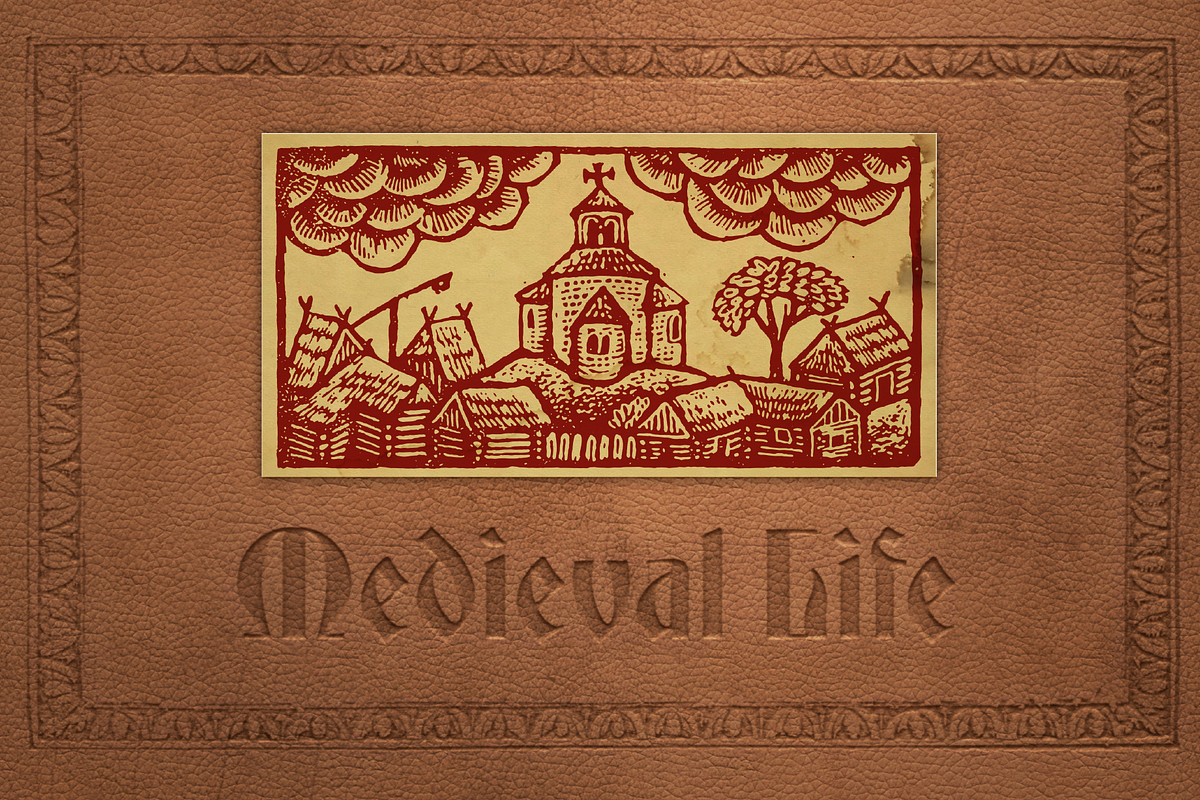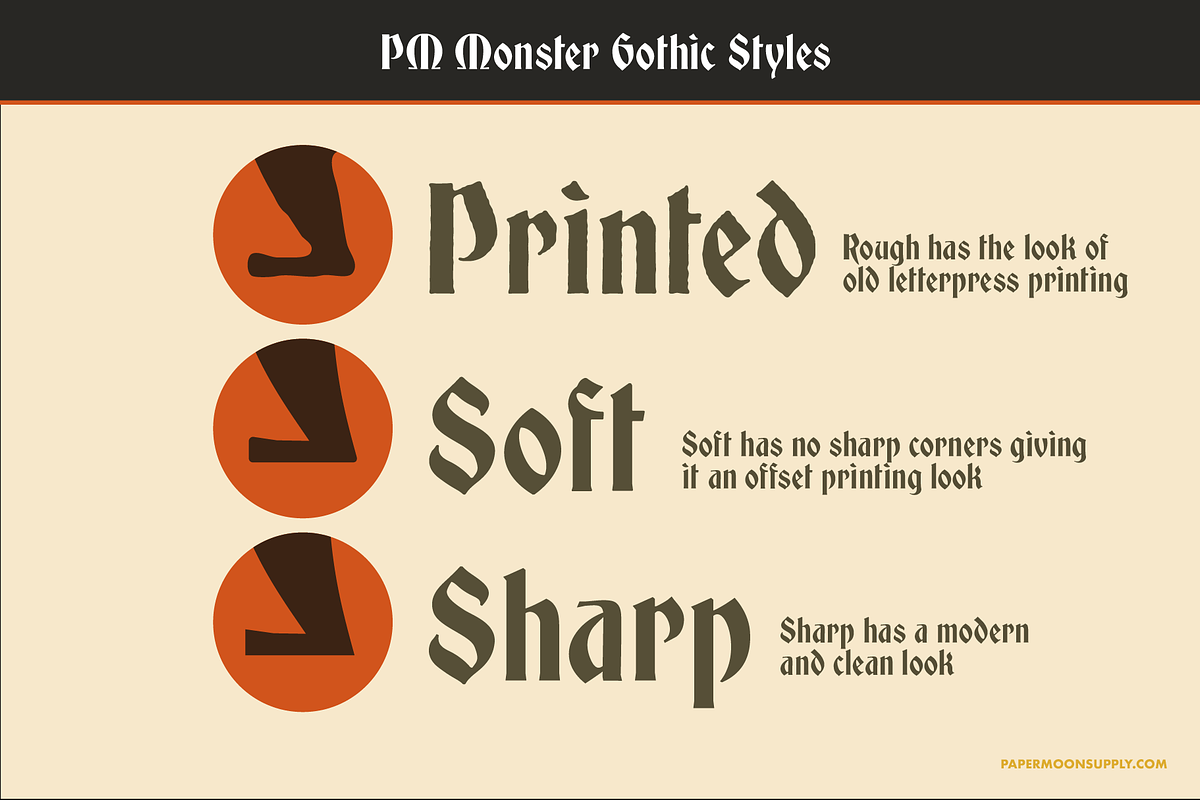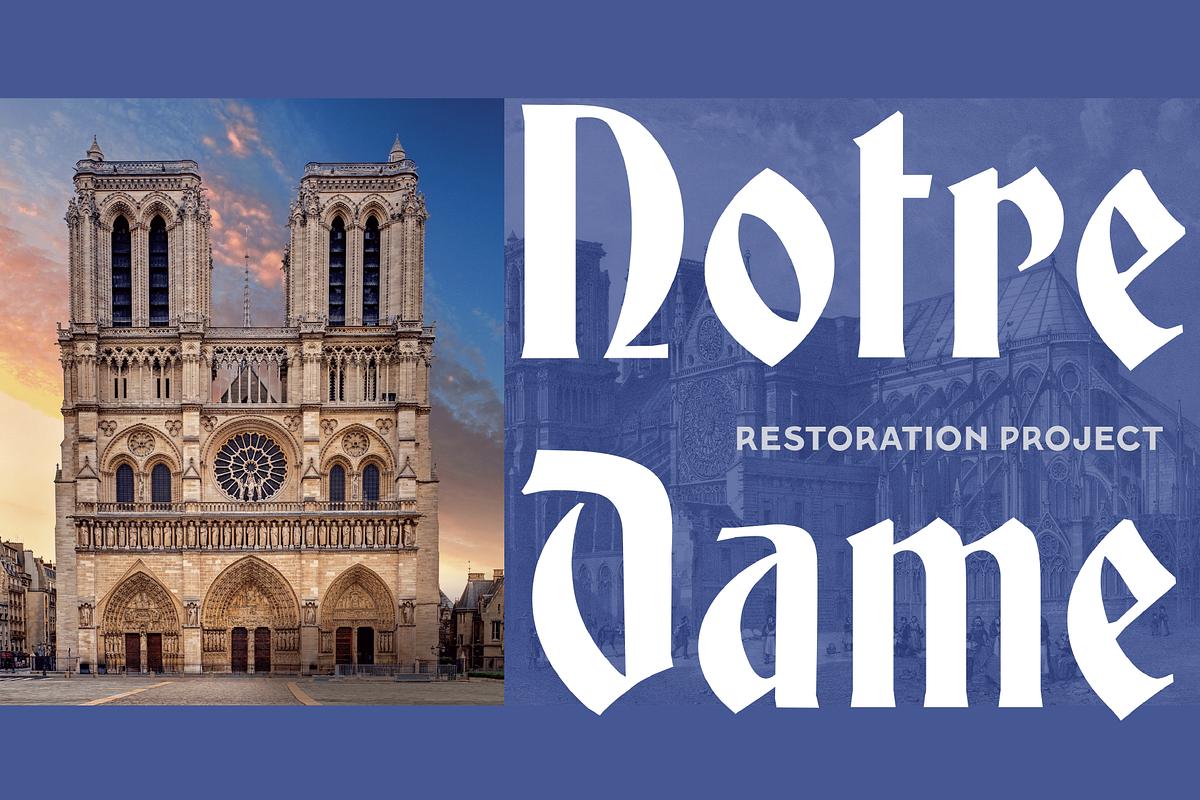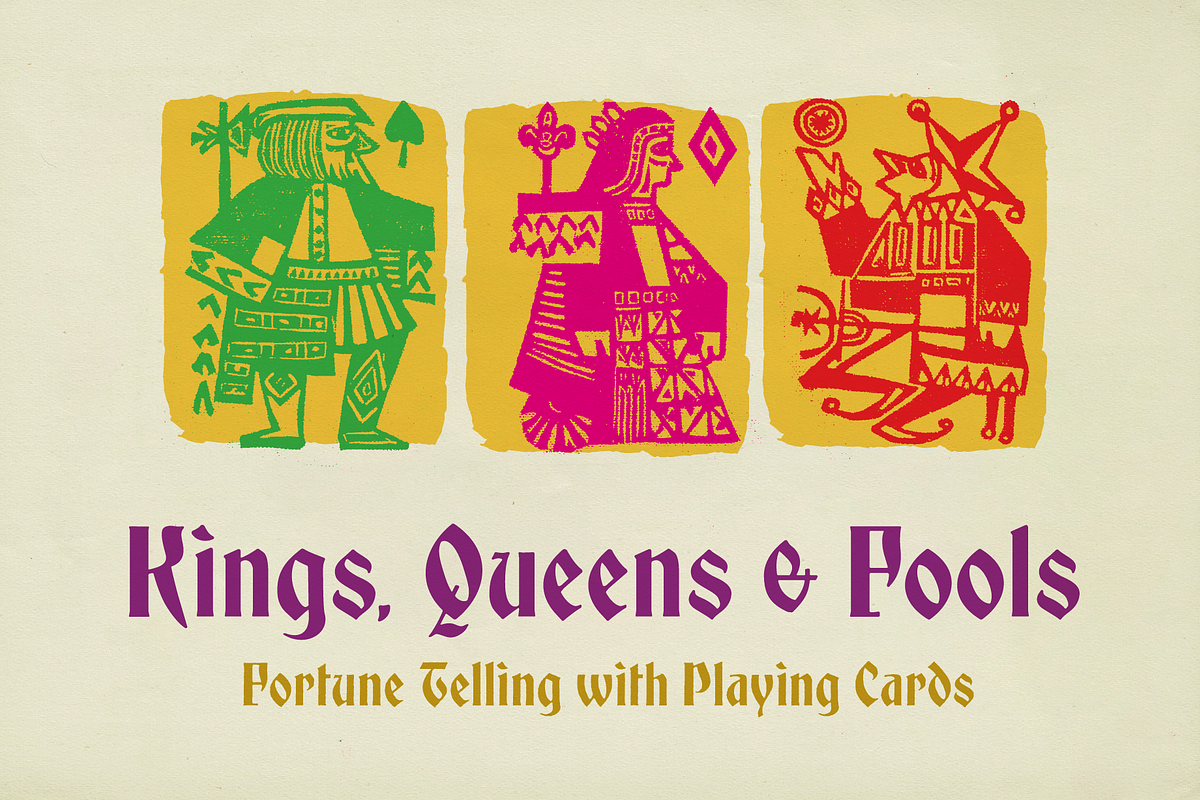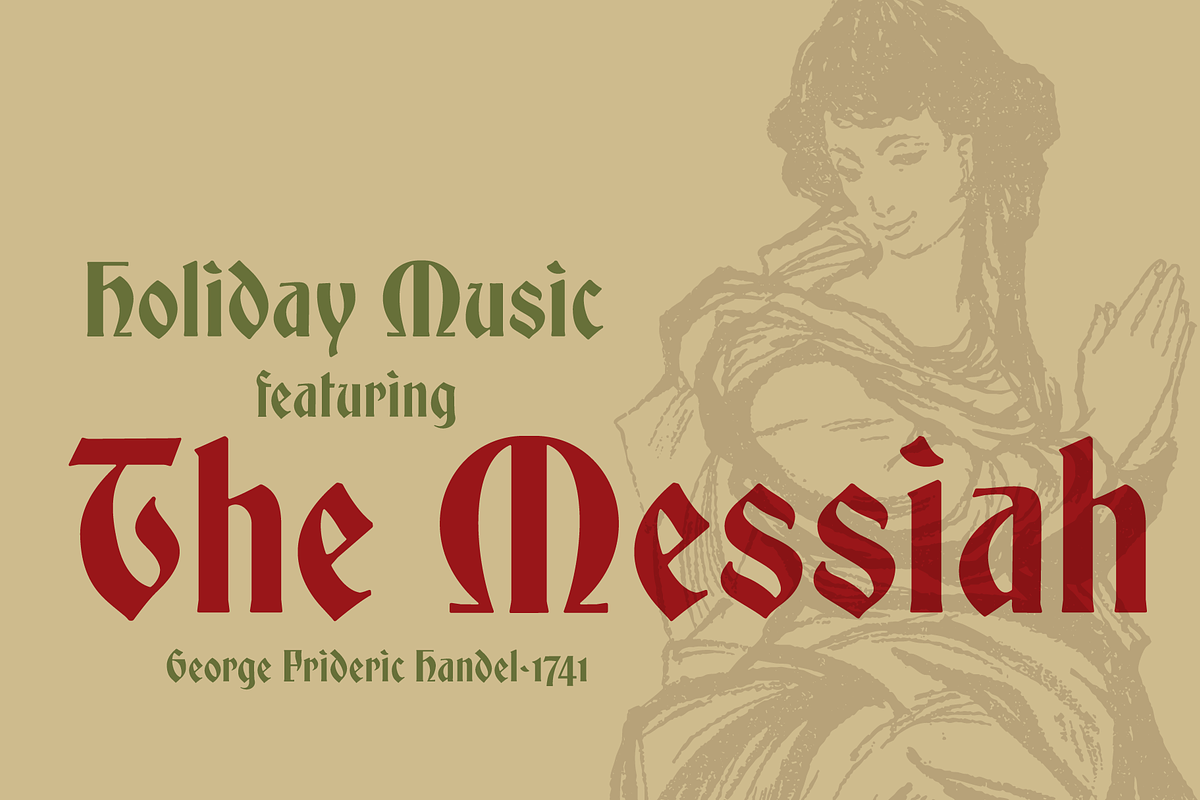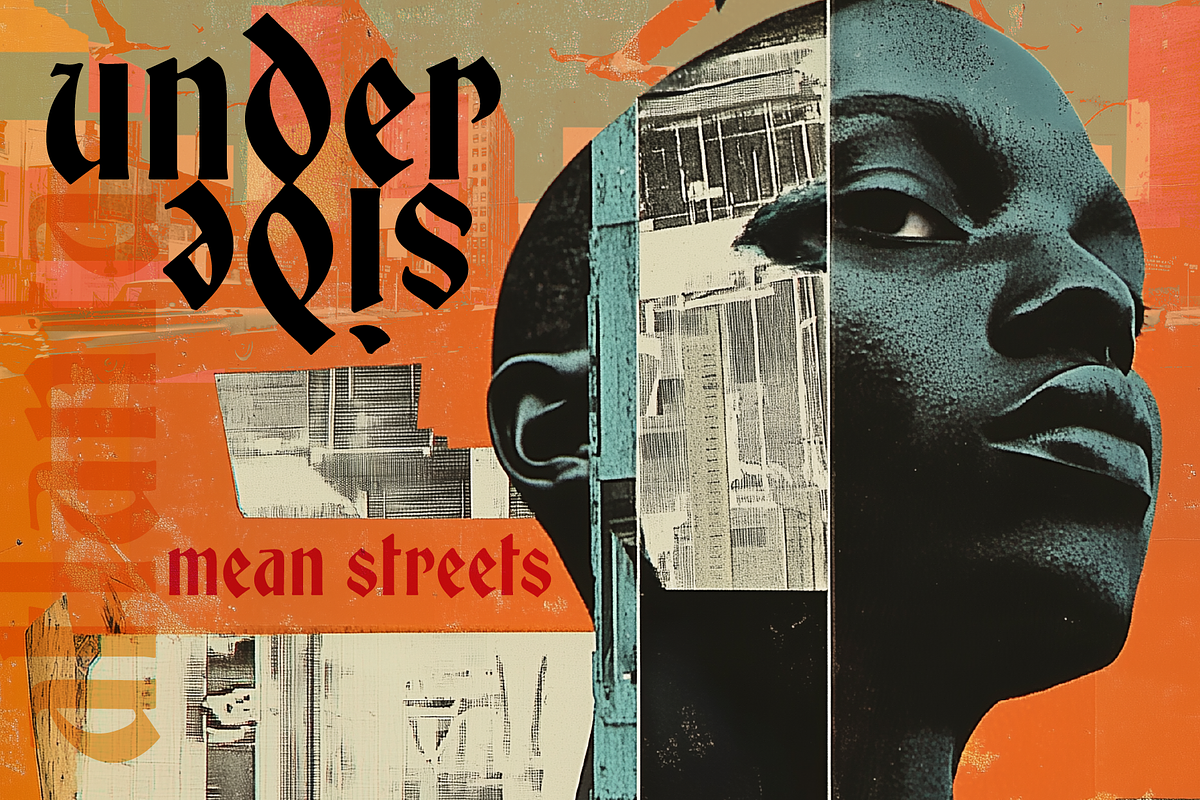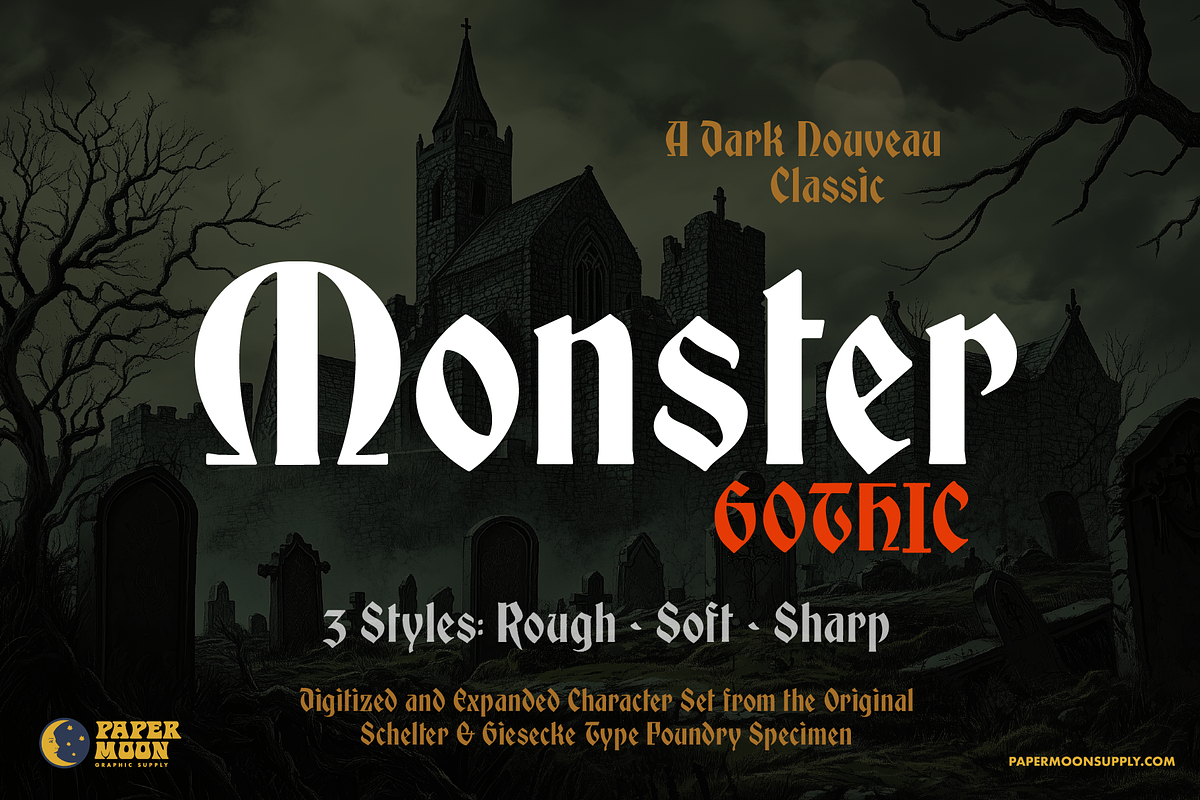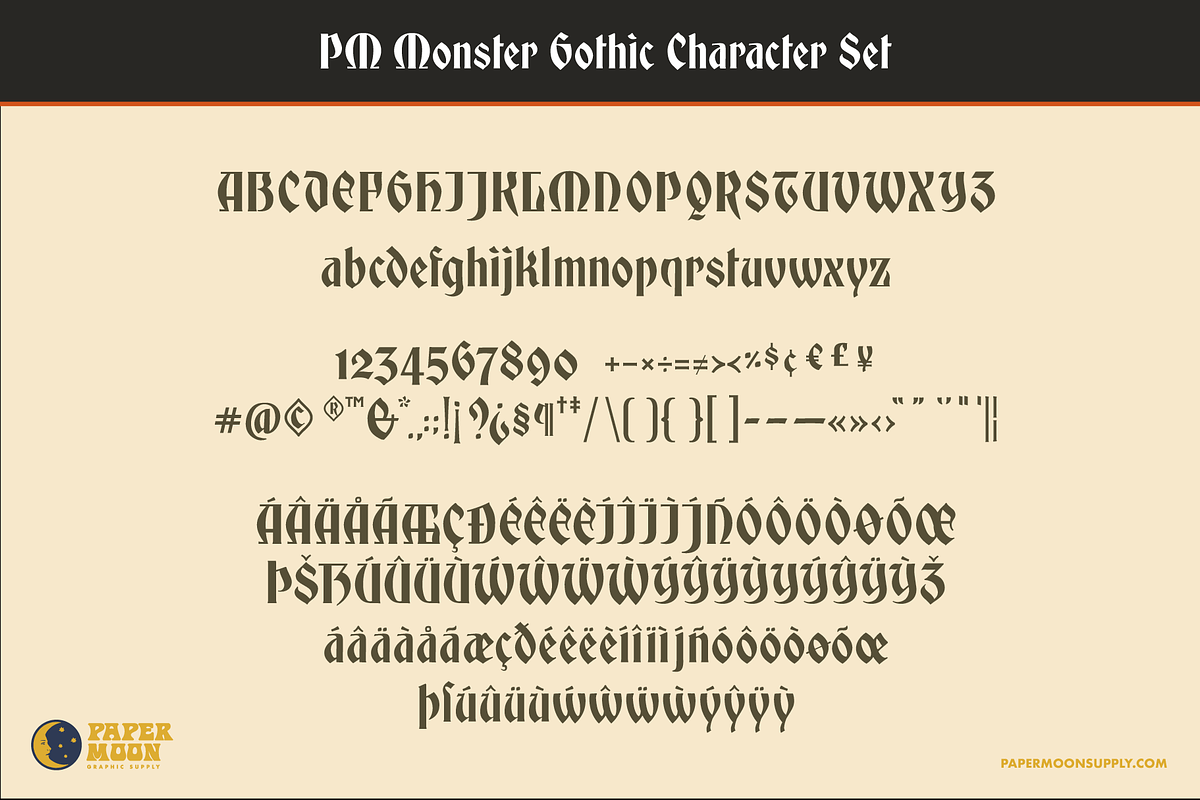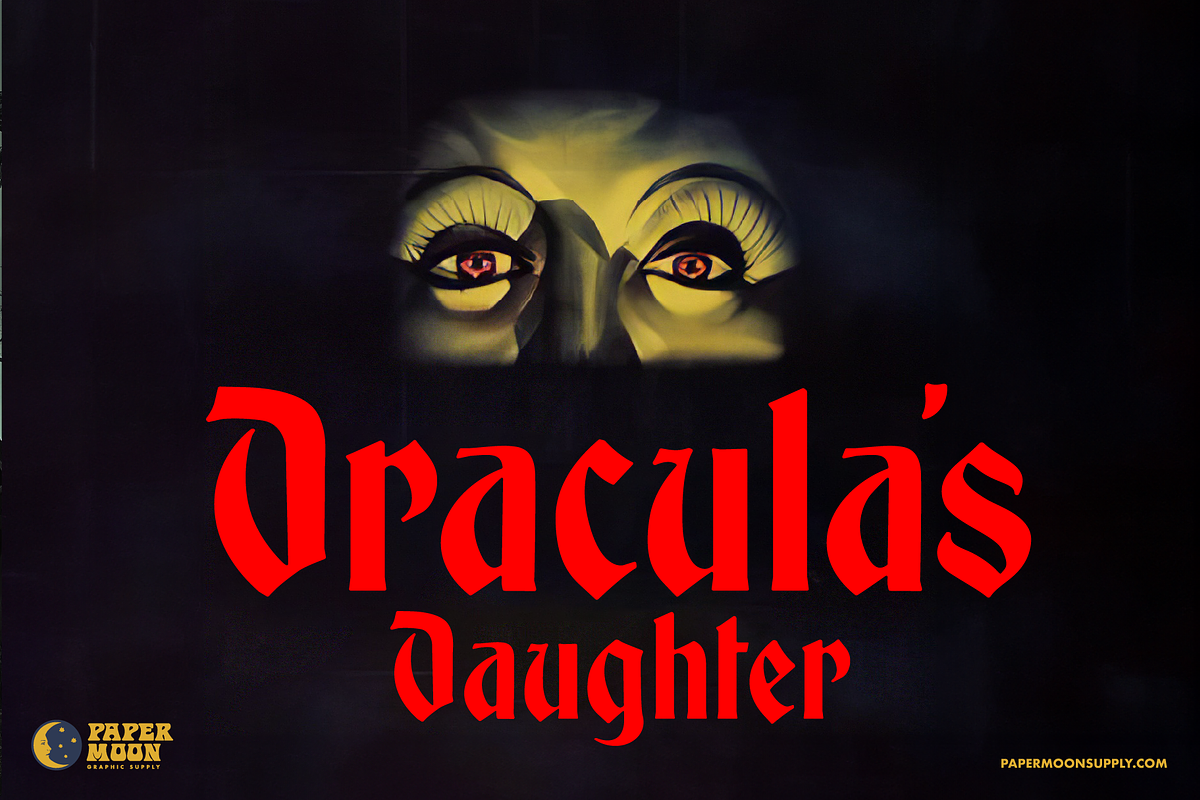
PM Monster Gothic
PM Monster Gothic - A new revival font from Paper Moon Graphic Supply
PM Monster Gothic (Münstergotisch) is a revival font meticulously redrawn and kerned from the original Schelter & Giesecke type specimens. Our newly digitized version has three styles: a grungey, letter-pressed style, a modern, clean, sharp-cornered version, and a style with slightly rounded corners for a softer look.
It's the perfect font for gothic, classic horror, and Halloween projects. It also works great with medieval and historic designs. The clean, modern versions are excellent for pop culture, music, exhibit, and fashion designs.
- Three styles: Printed, Regular (sharp), and Soft (Slightly rounded corners)
- Complete alphabet, number, and punctuation sets
PM Monster Gothic was developed by award-winning illustrator and designer Scott Banks.